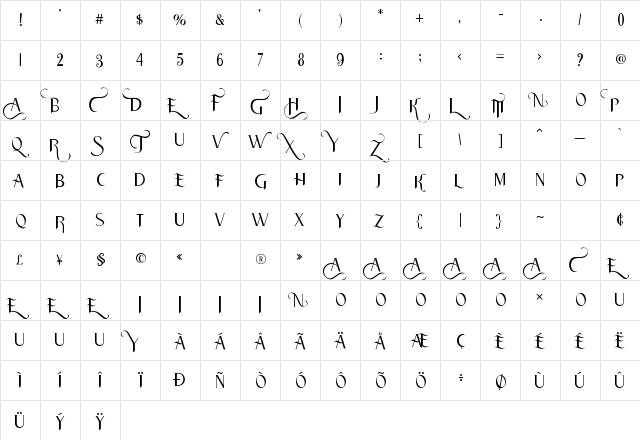
Traditian Regular
| Foundry | Hans Co |
| Designer | Burhan Afif |
Design Context for Traditian Typeface
Traditian takes a measured approach to typography — its balanced proportions and neutral character make it a reliable workhorse for both digital and print work.
Pro Tip: Use Traditian in both headline and body roles to test its range before committing to a single application.